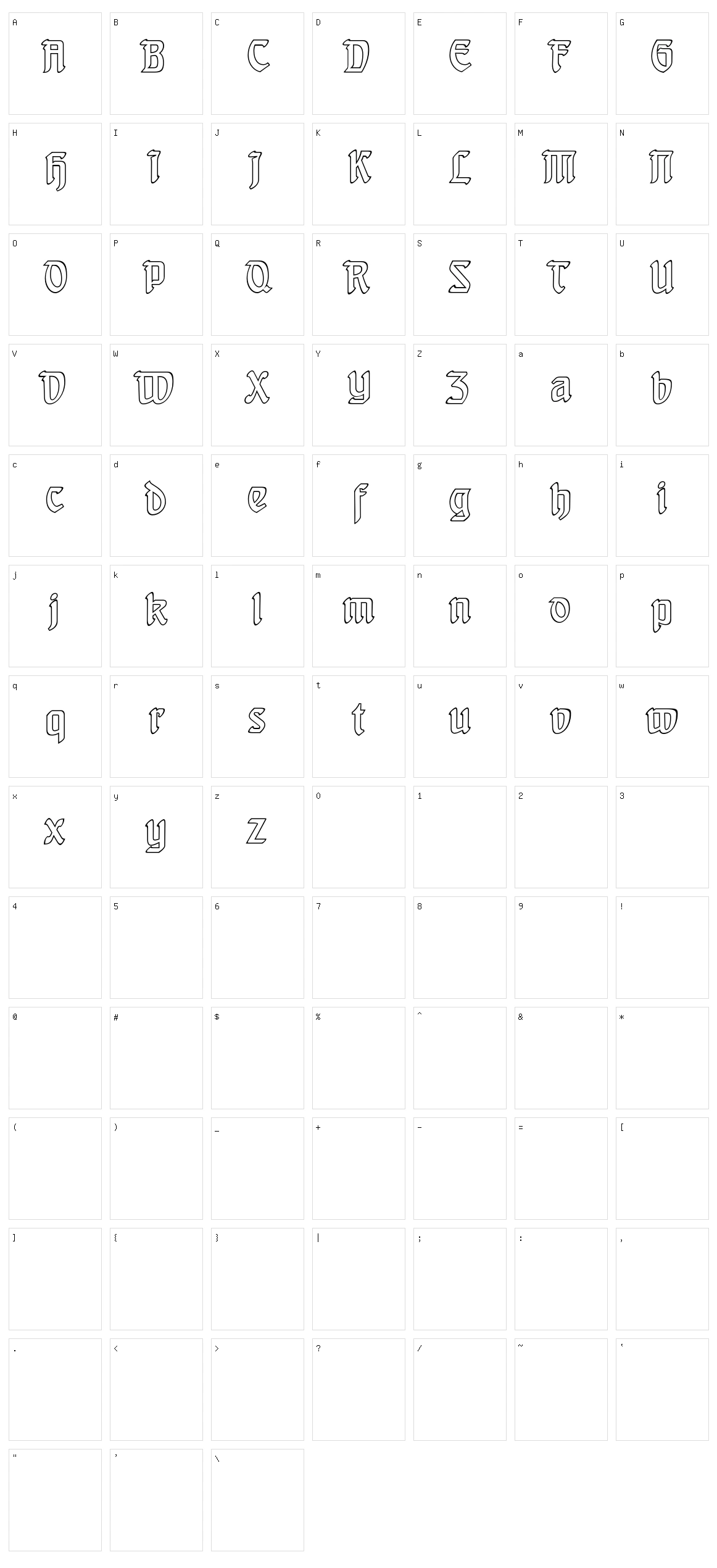
The free font Behrens Schrift is carefully designed by ingoFonts, showcasing a thoughtful balance of creativity and usability and belongs to the Gothic font family. When you download the ZIP file, it contains only 380.51 KB of font files, making it lightweight and quick to download. Please review the license details below to understand permitted usage and distribution rights. If license information is not available, we recommend using this font for personal projects only or contacting the author directly for commercial usage permissions.